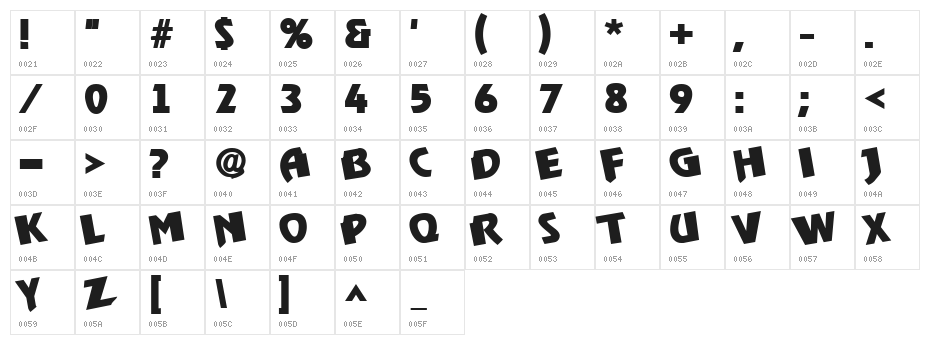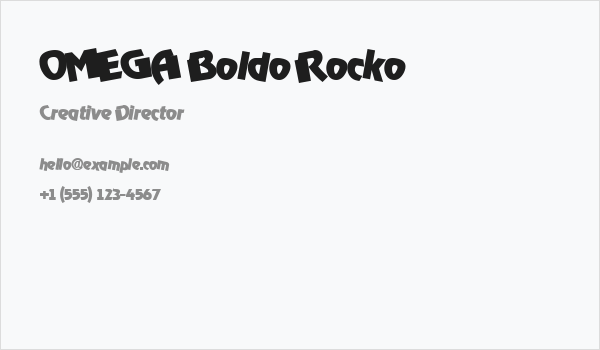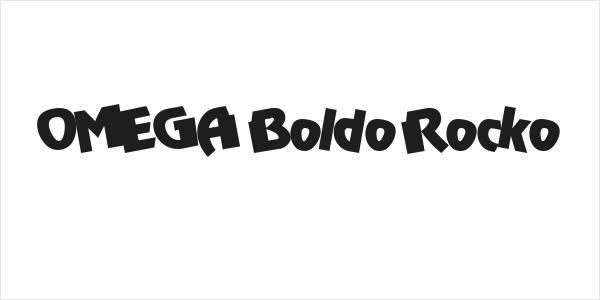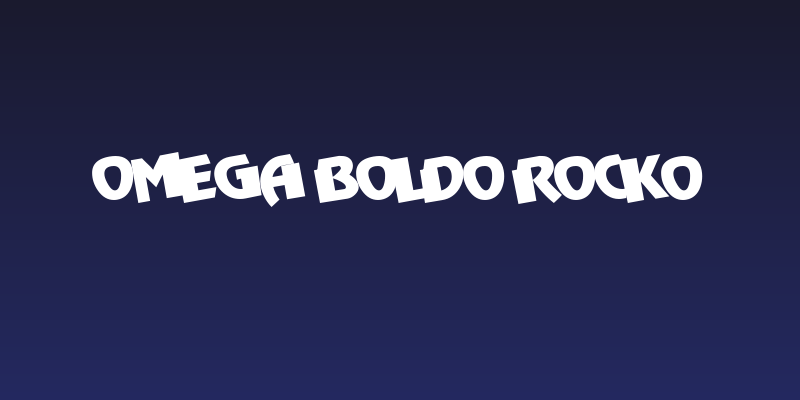
OMEGA Boldo Rocko Font
OMEGA Boldo Rocko Description
This font exhibits a bold and dynamic style with a strong presence. The characters are thick and slightly slanted, giving a sense of movement and energy. The uppercase letters are robust and angular, while the lowercase letters maintain a consistent weight and style, ensuring readability. The numbers are equally bold, matching the overall aesthetic. Special characters are designed with the same boldness, making them stand out. This font is ideal for projects that require a strong visual impact.
| Use Case | Headlines, Posters, Branding |
| Proposed Projects | Ideal for posters, headlines, branding, and any design needing a bold statement. |